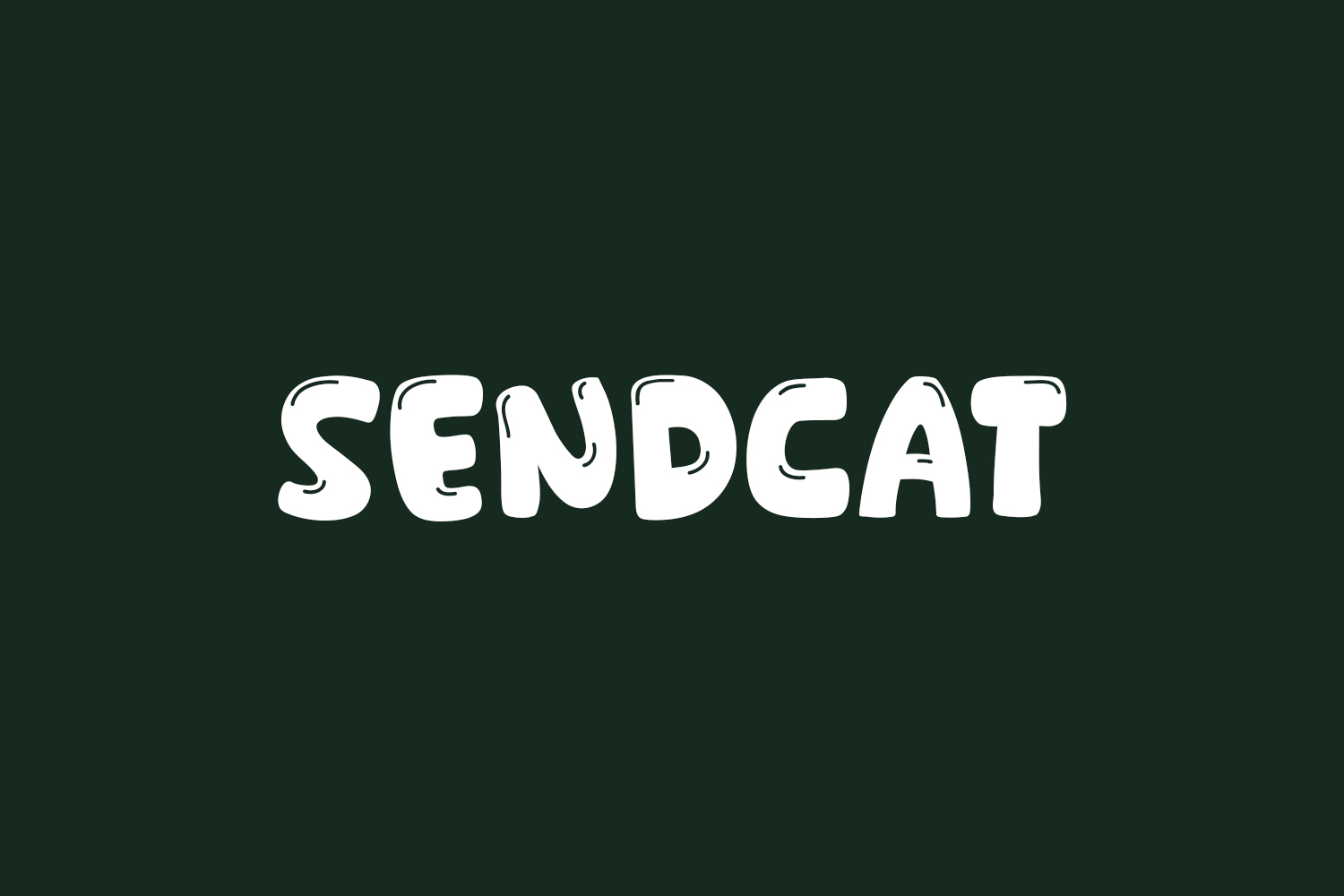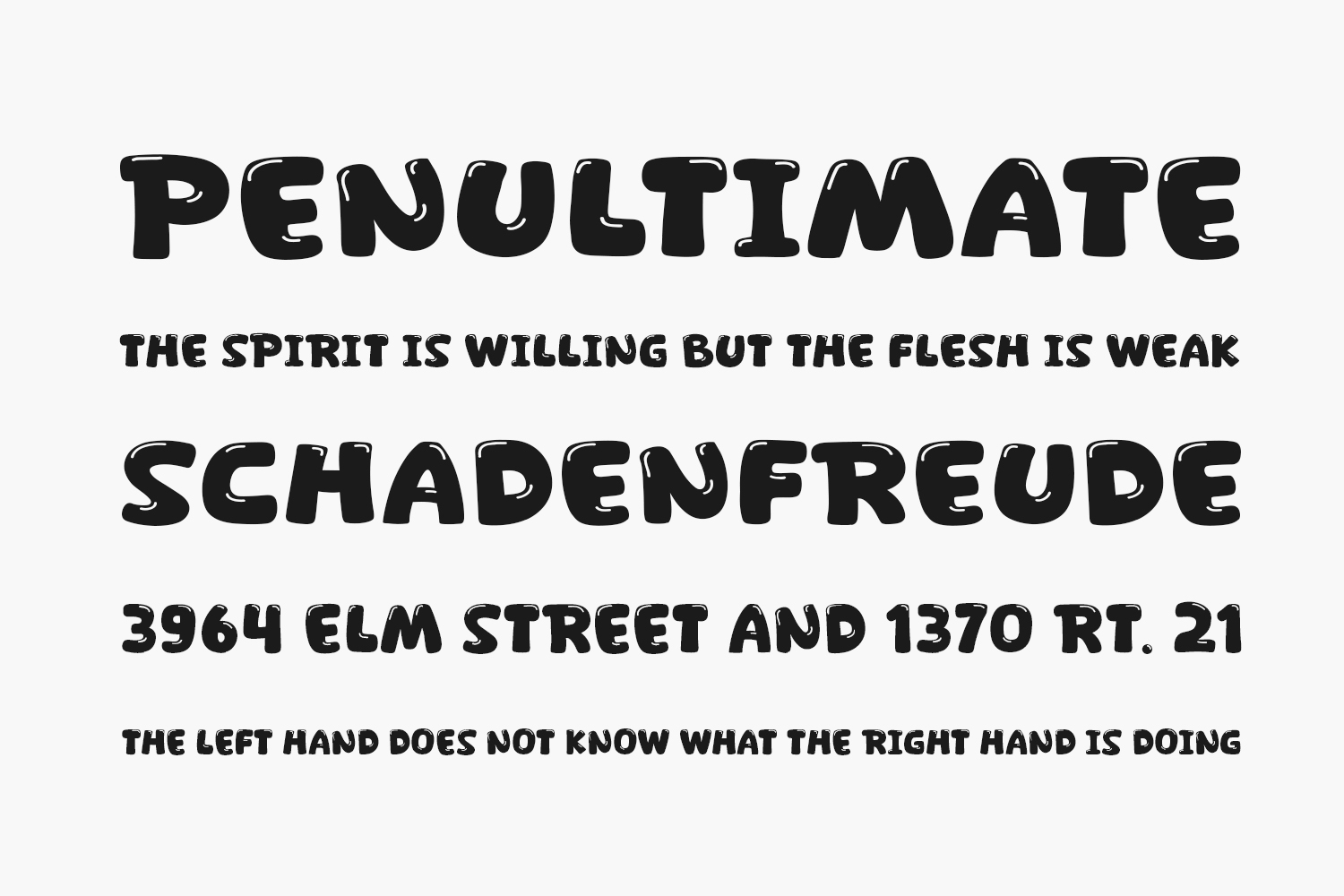
Introducing Sendcat Free Font, a sleek and stylish display font ideal for posters, logos, magazines, book covers, banners, and beyond! Elevate your designs with this incredible font and watch them come to life. With its versatility, Sendcat effortlessly complements a vast array of projects, enhancing your creative endeavors and ensuring they shine brightly. Download the font for free if you need it for personal or commercial use.